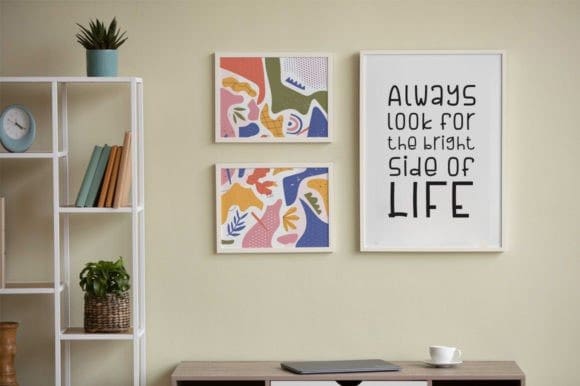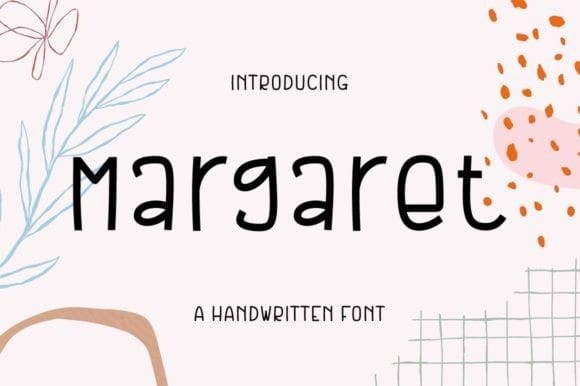
Margaret Display Font
Margaret Display Font, is a cute and simple-lettered handwritten font perfect for all the chalkboard quotes and teaching materials you wish to create! Its authentic look will add a personal and realistic feel to your designs.